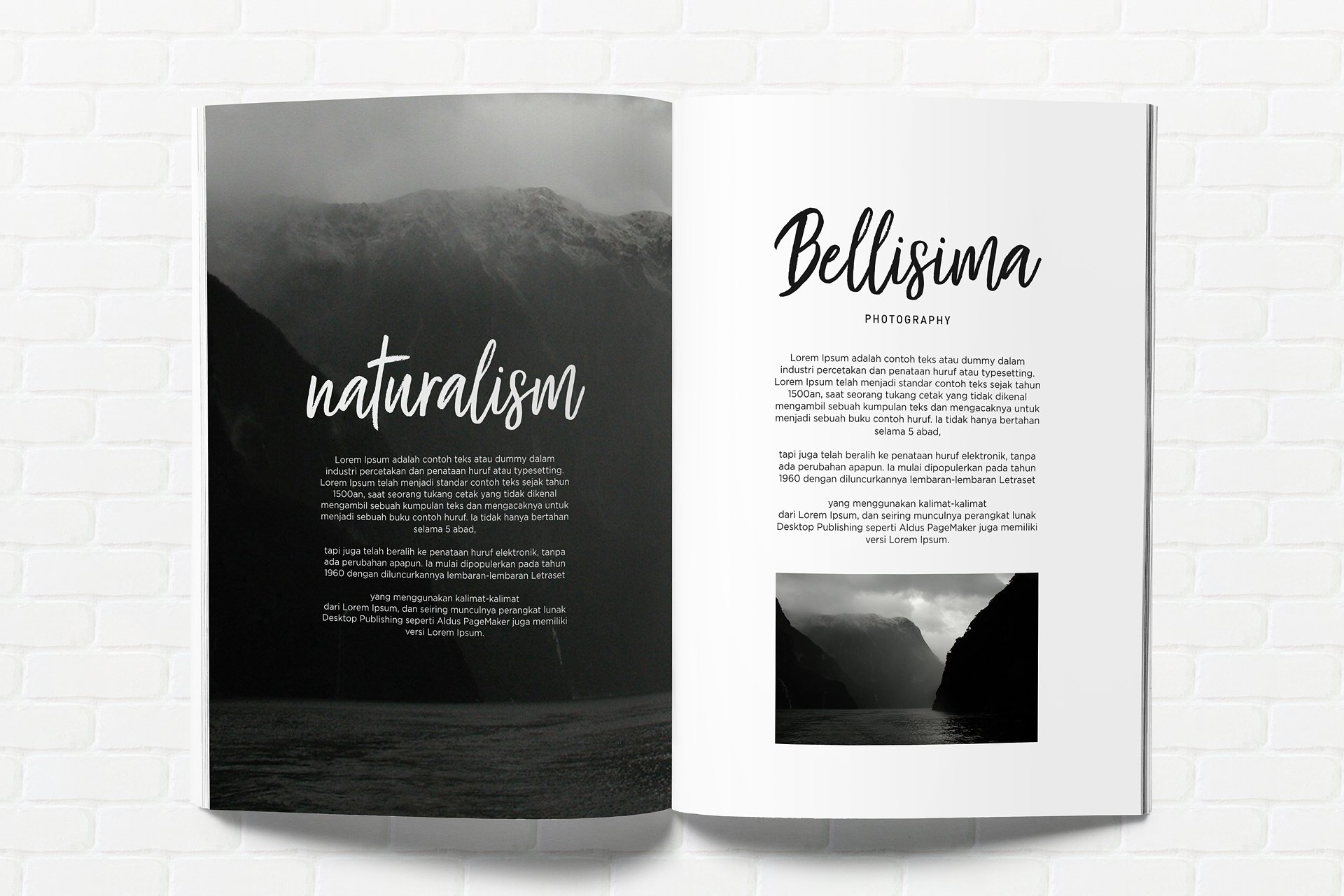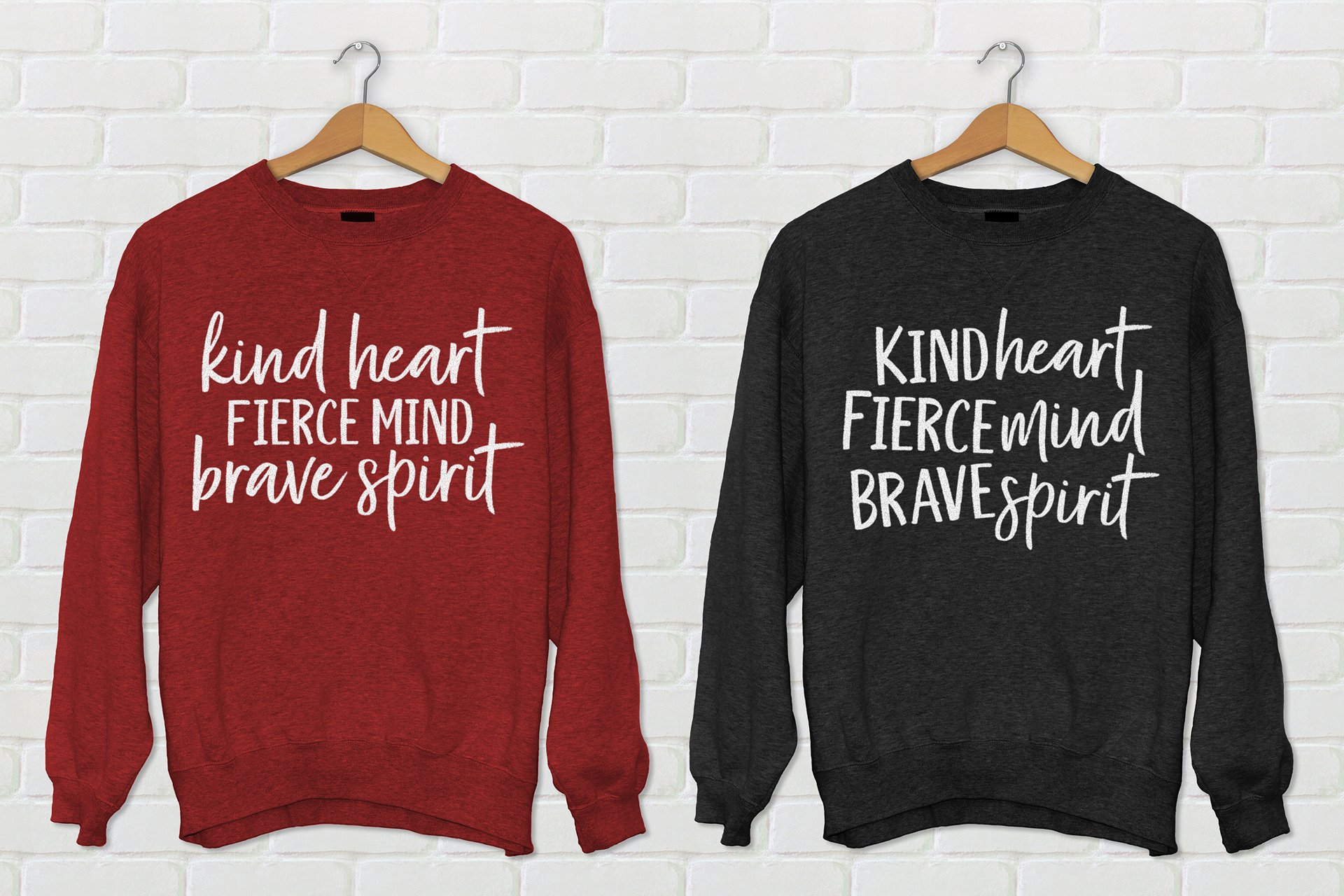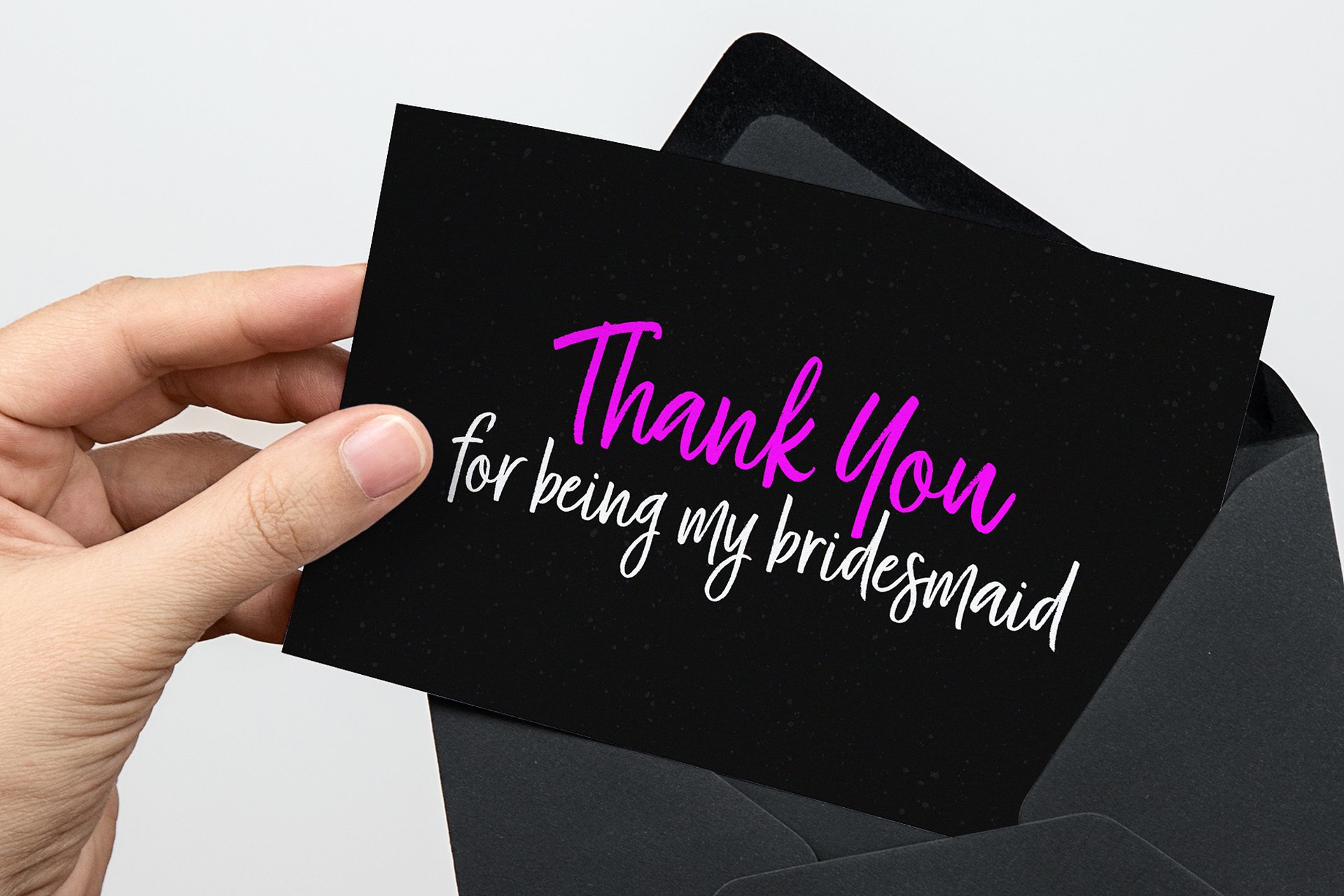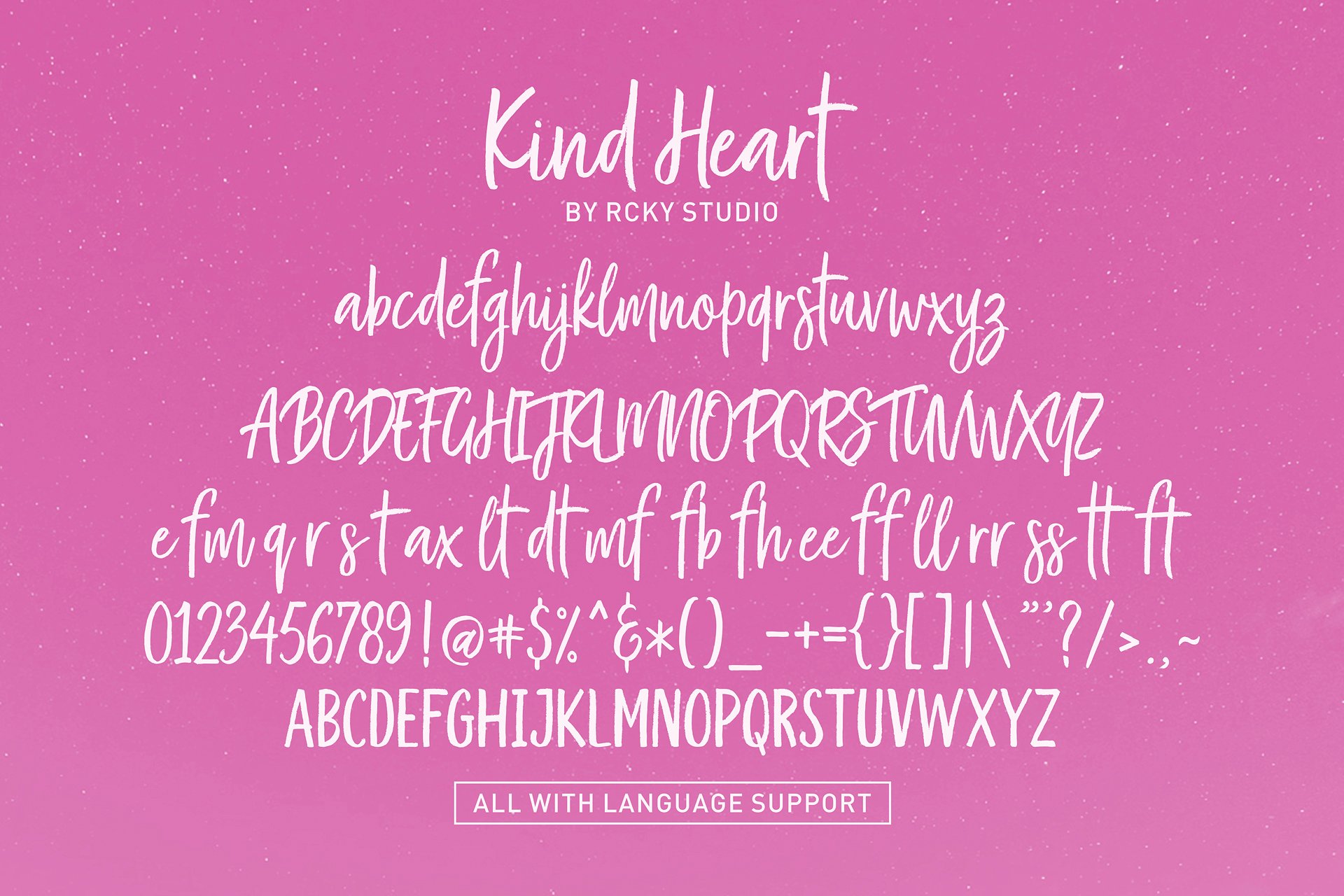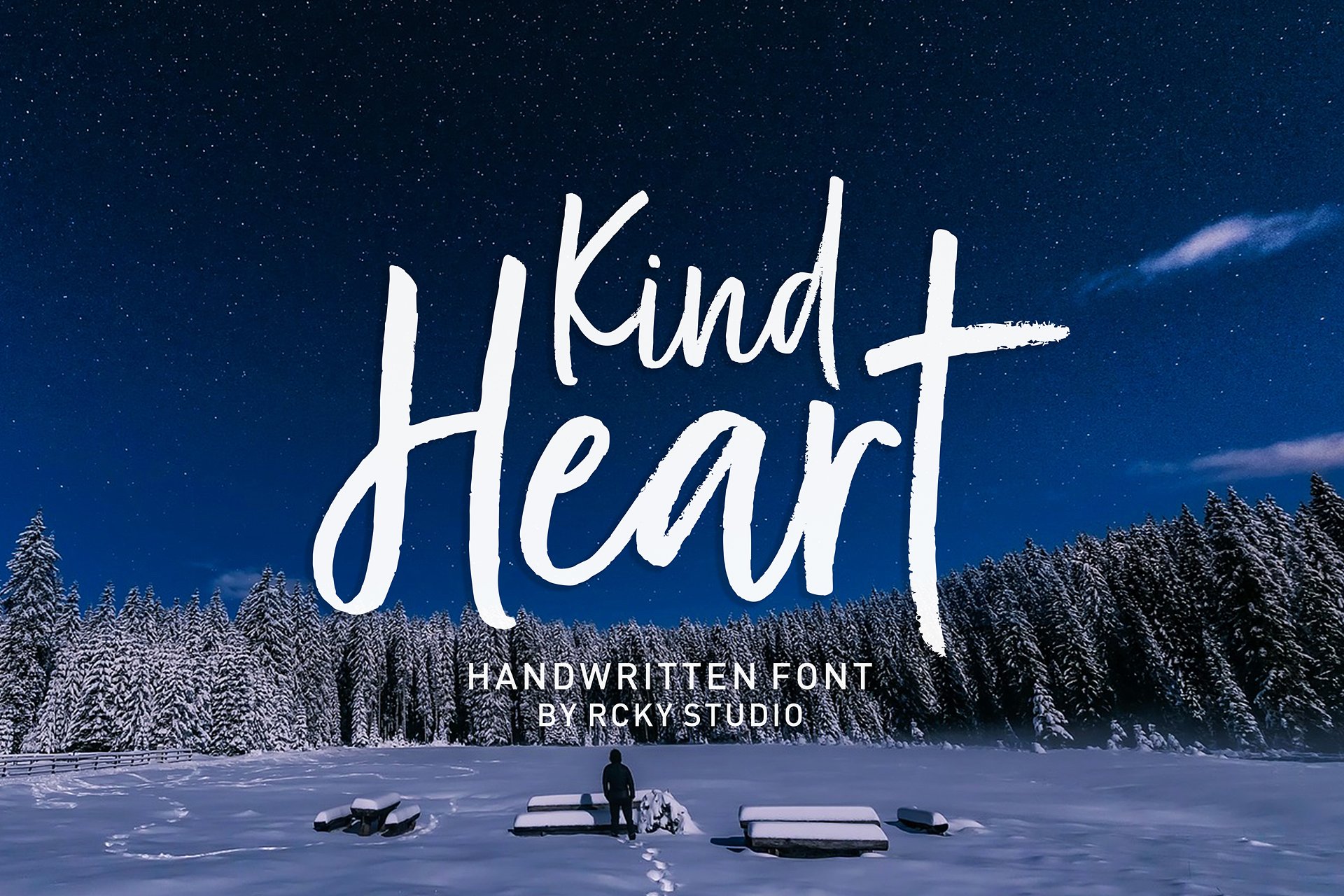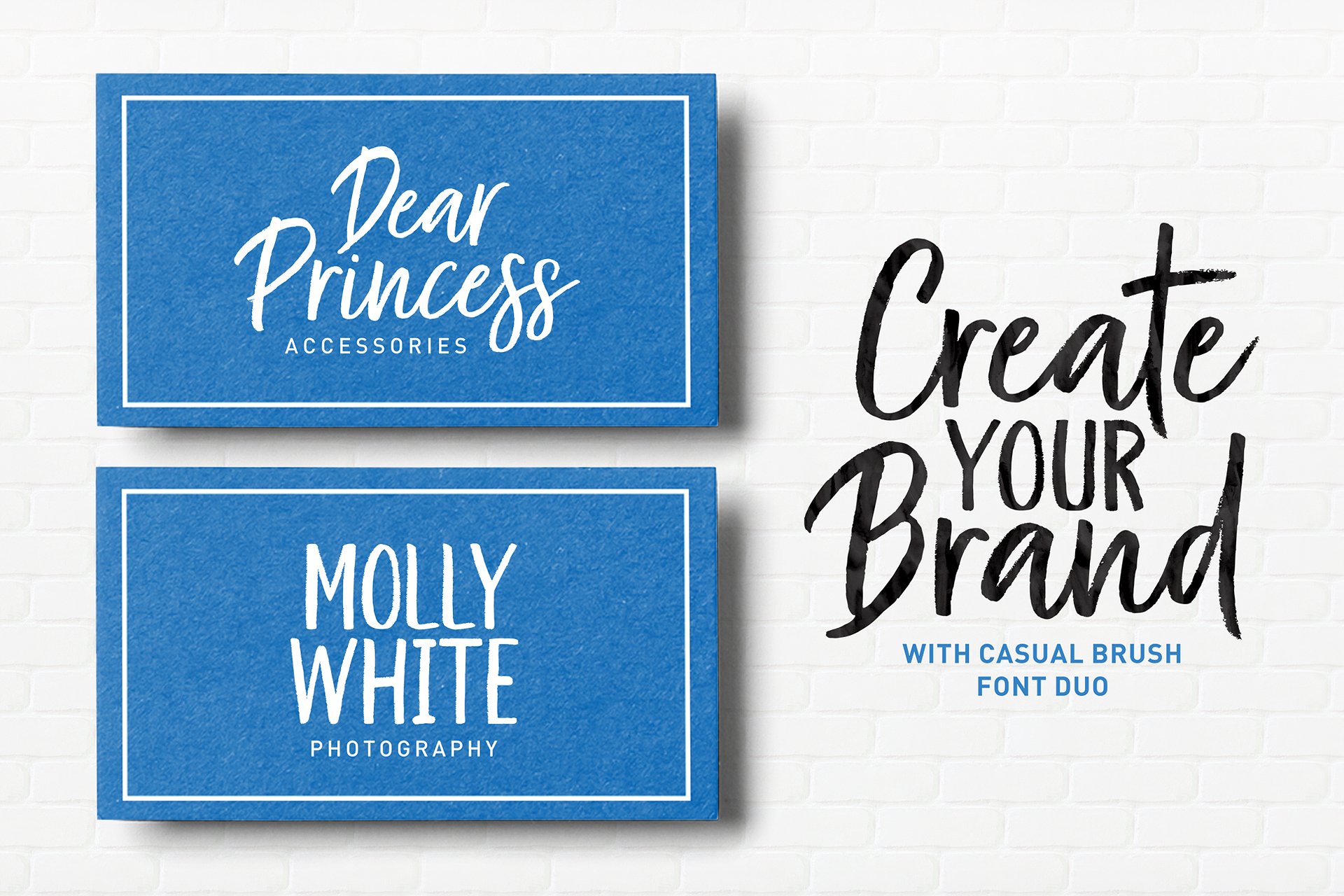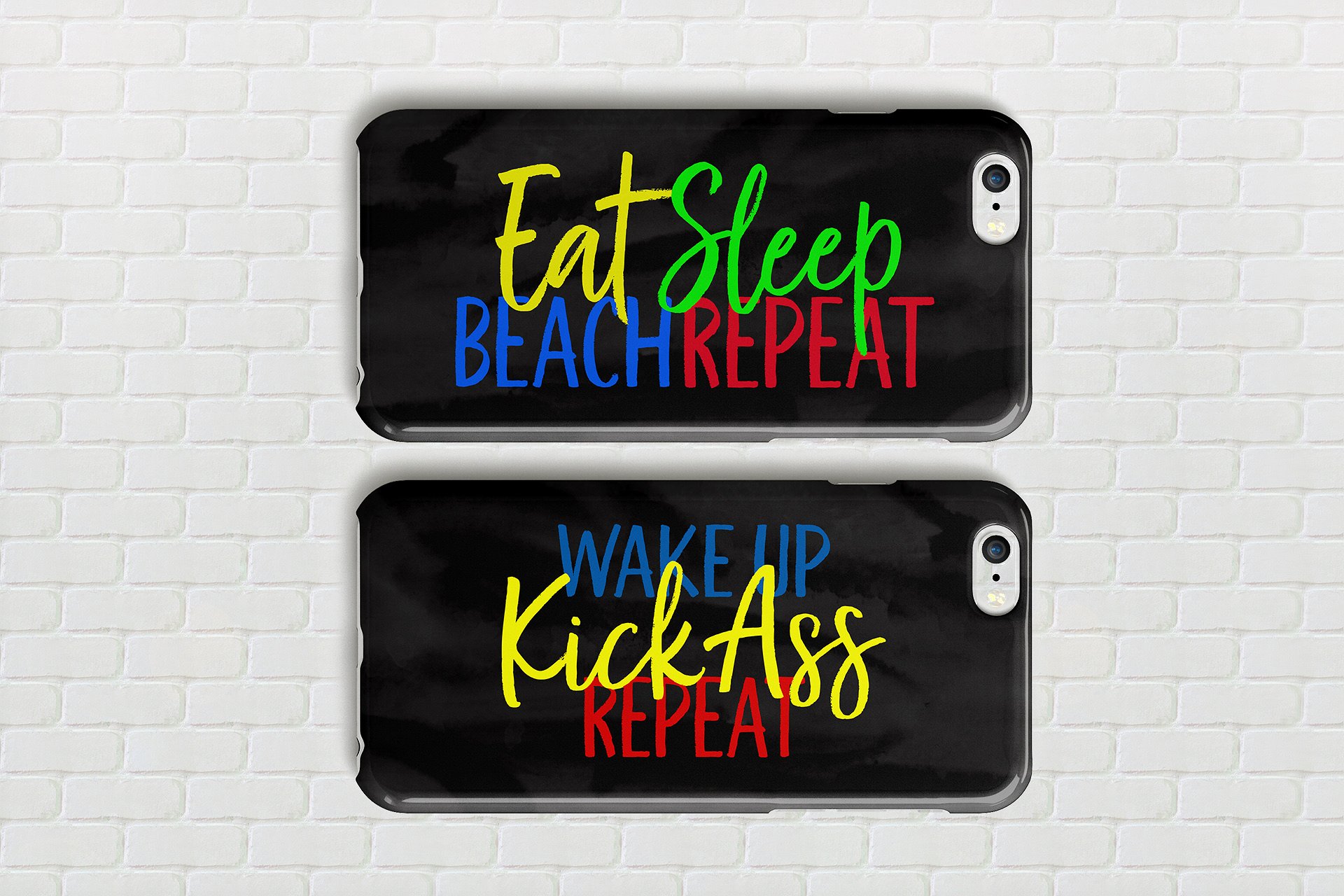
Kind Heart Font Duo Font
About Kind Heart Font Duo Font
An incredibly refreshing script, Kind Heart is easy on the eyes and variable: this script style is suited to a seemingly endless pool of design options.
Clean and modern, Kind Heart is a reliable and lovely script font.